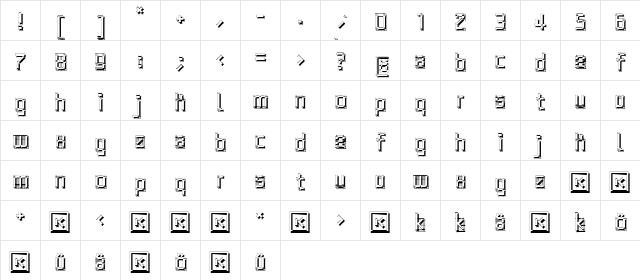
ArchitypoShadow Regular
Design Context for ArchitypoShadow Typeface
ArchitypoShadow brings ornamental detail and strong personality to headlines and identities, where visual impact matters more than quiet functionality.
Font Pairing: Pair with a clean neutral sans-serif for body copy to let ArchitypoShadow's character lead without overwhelming the composition.
Pro Tip: Use ArchitypoShadow exclusively at display sizes — it was designed to be seen, not read at length. Let a neutral companion handle body copy.